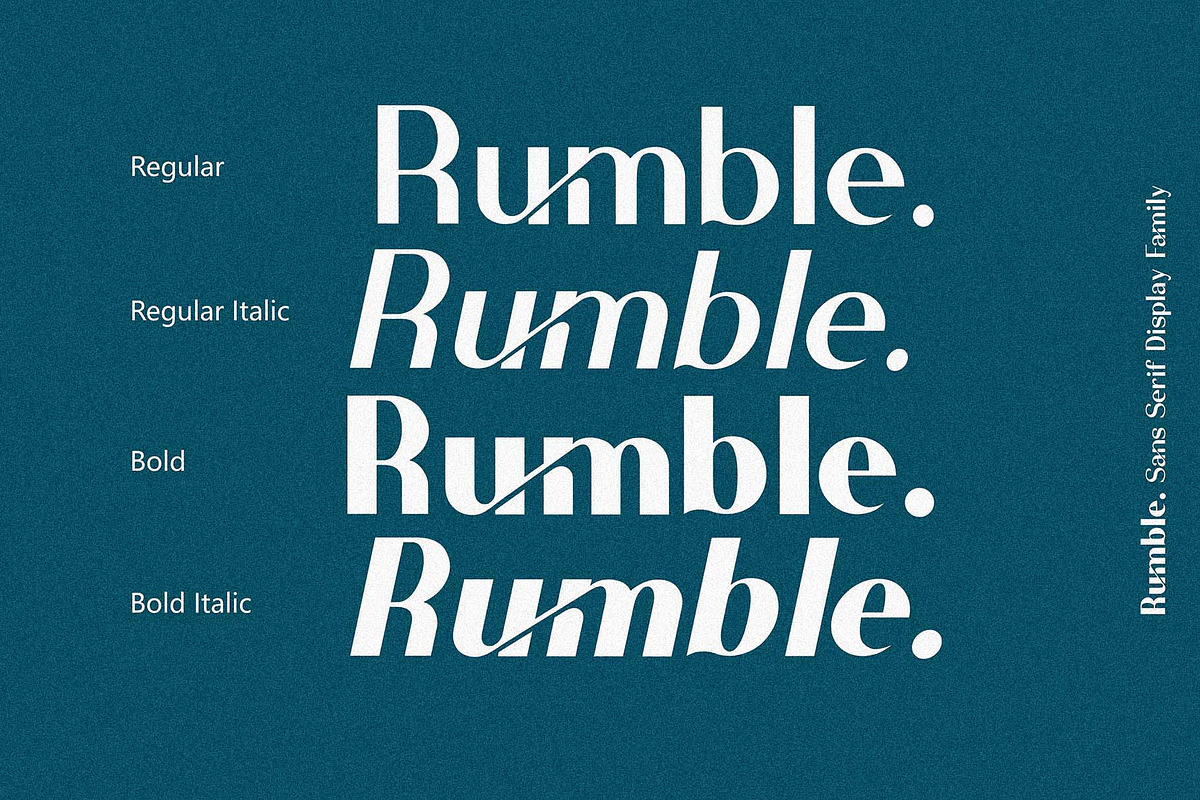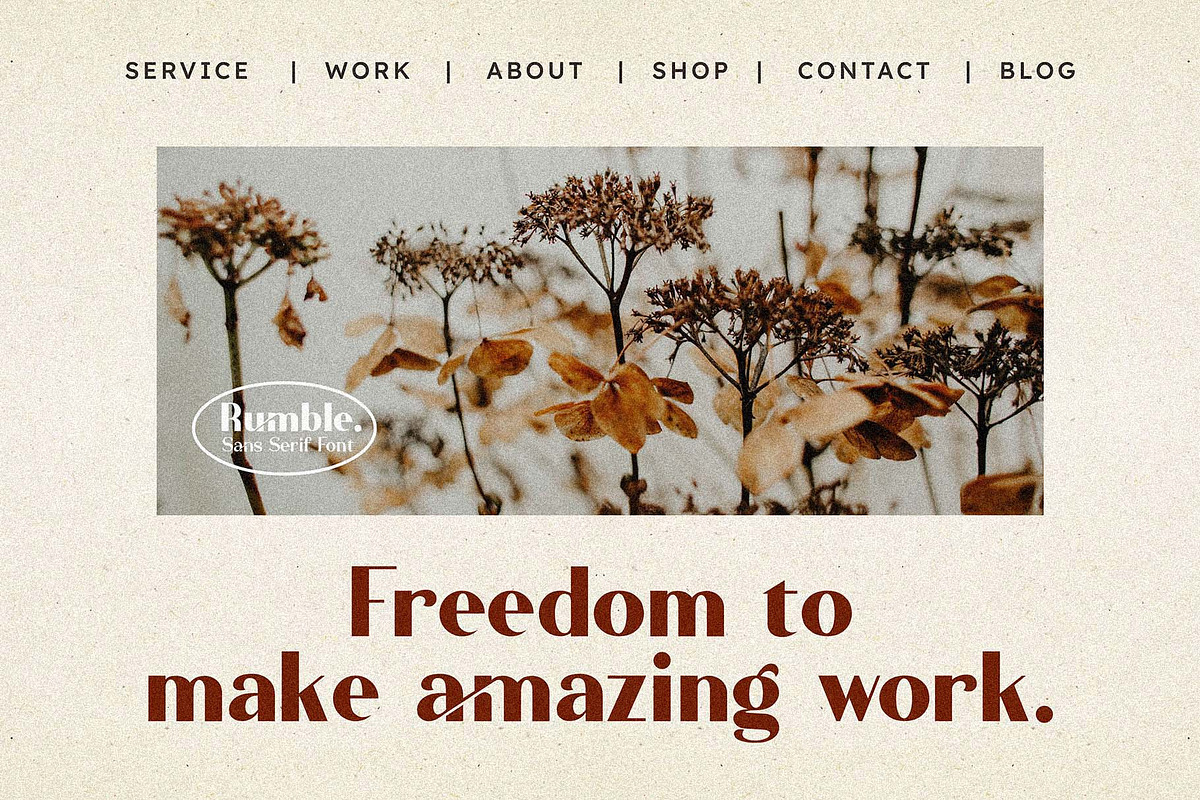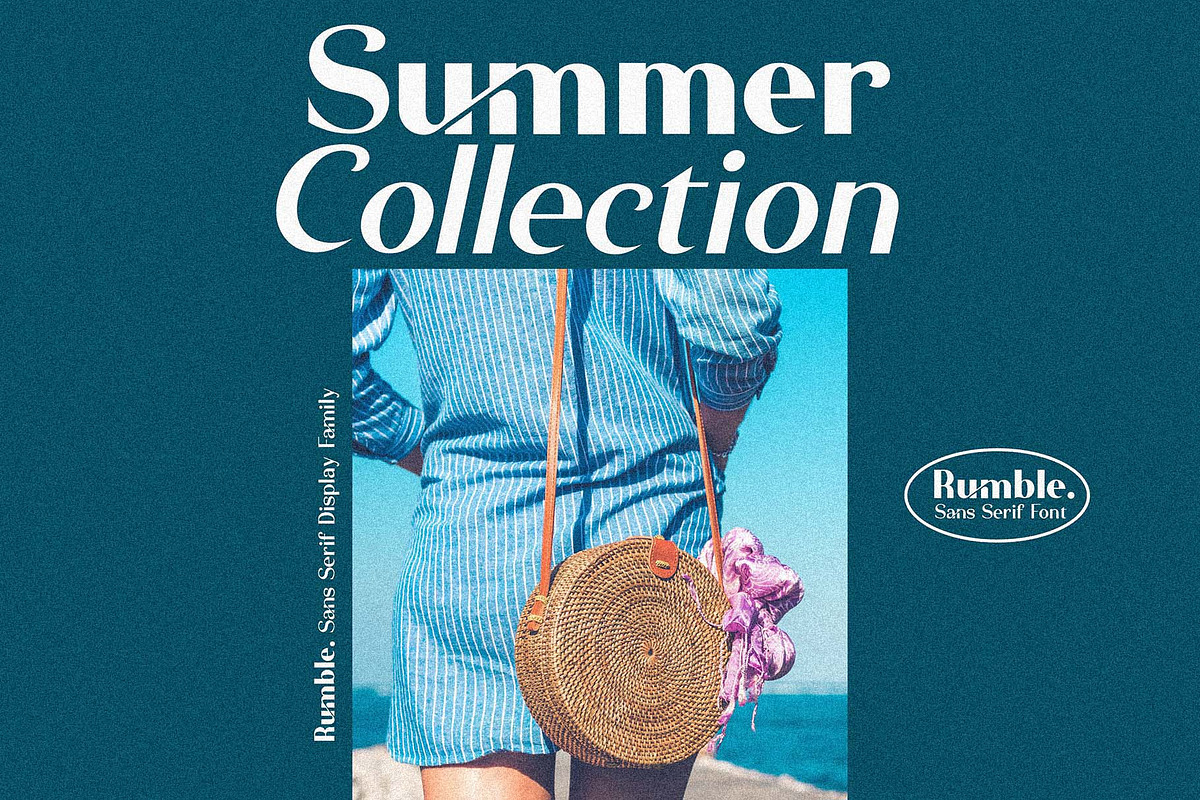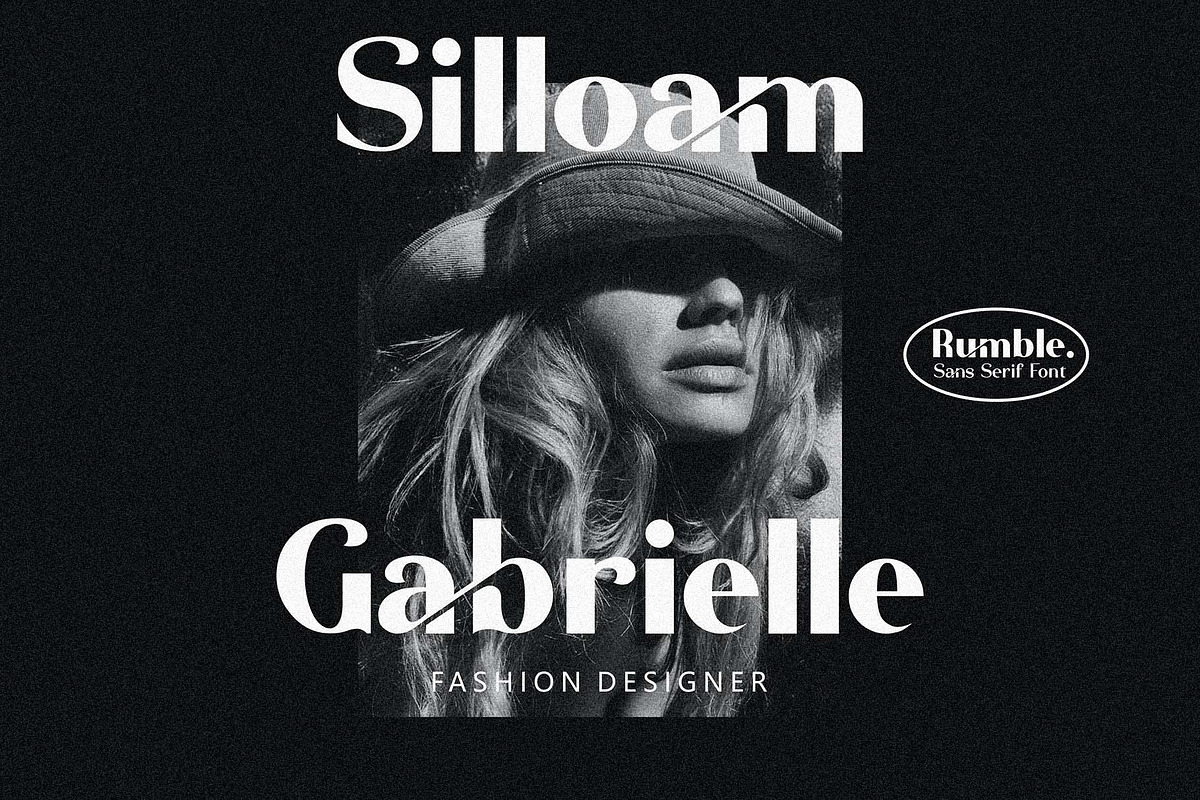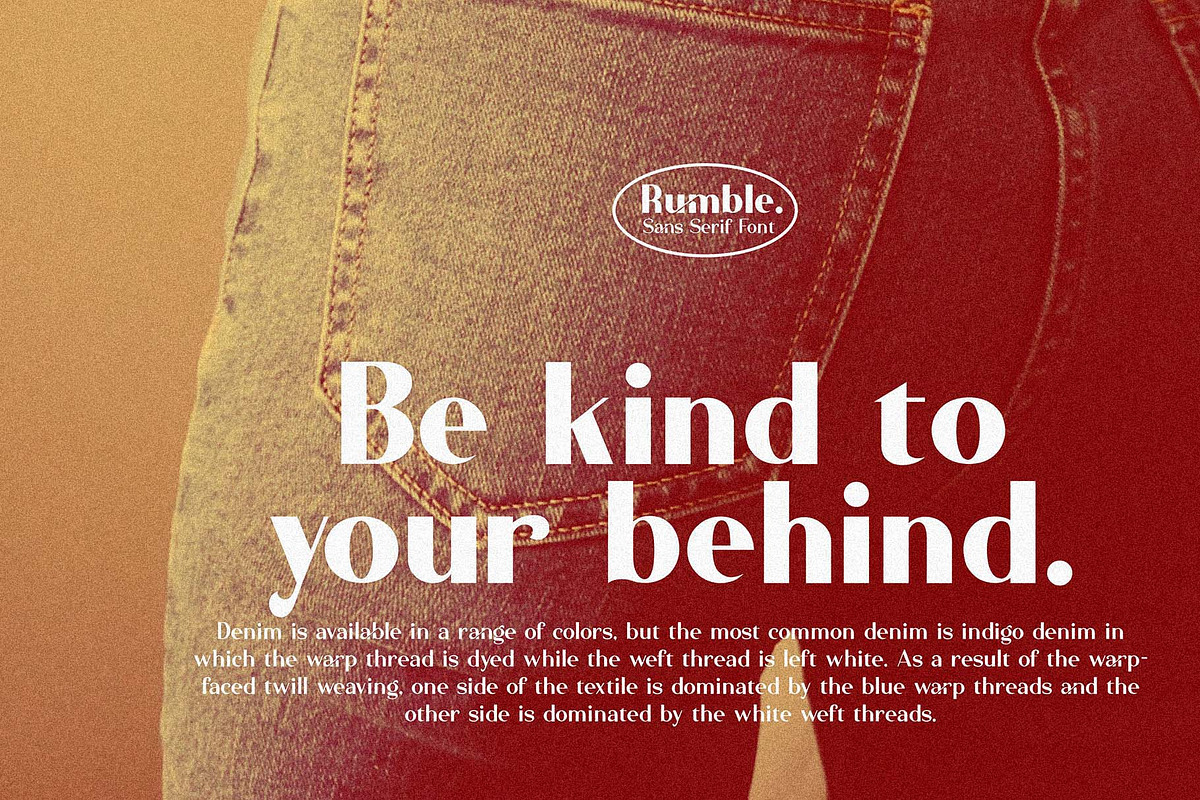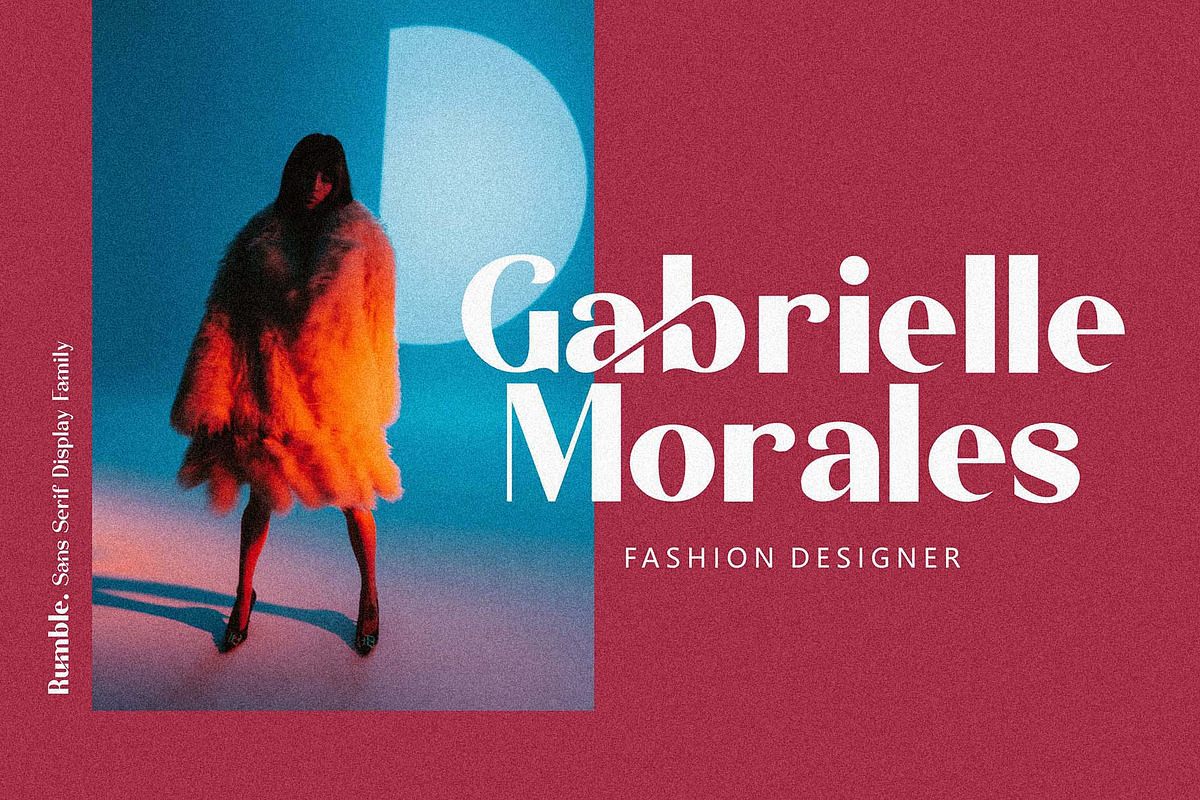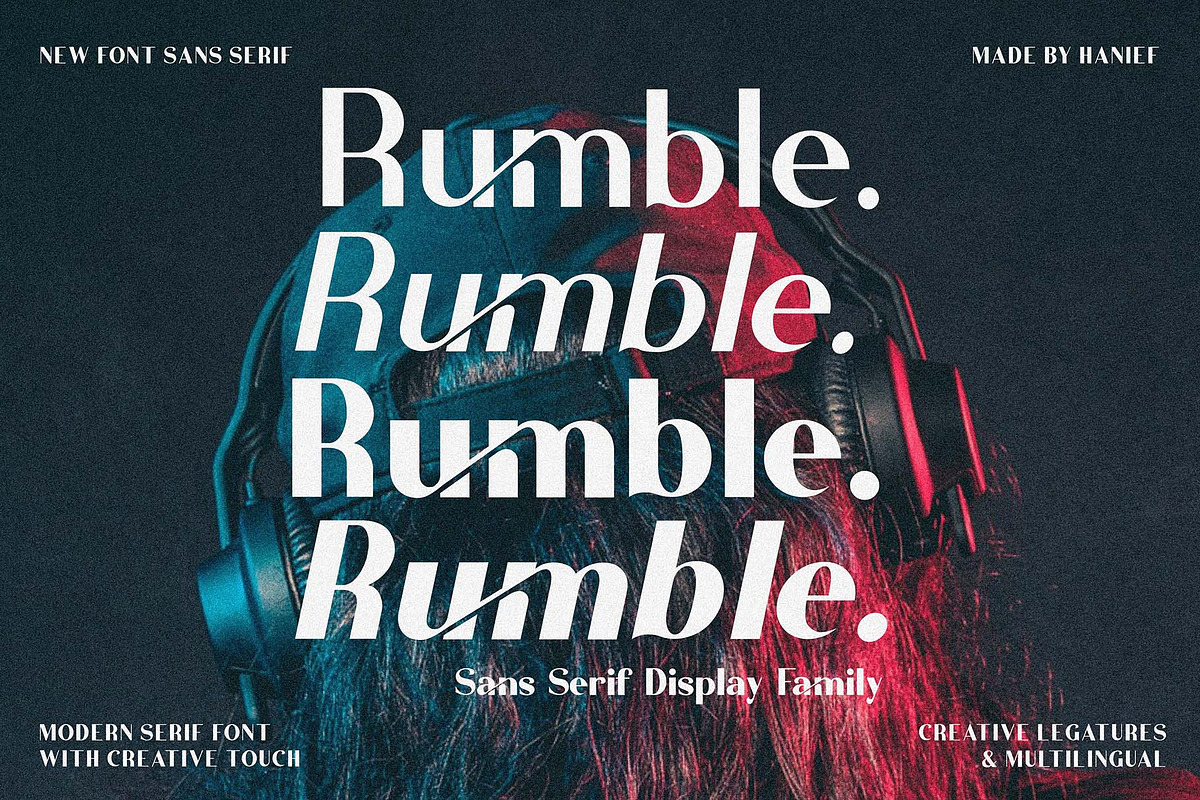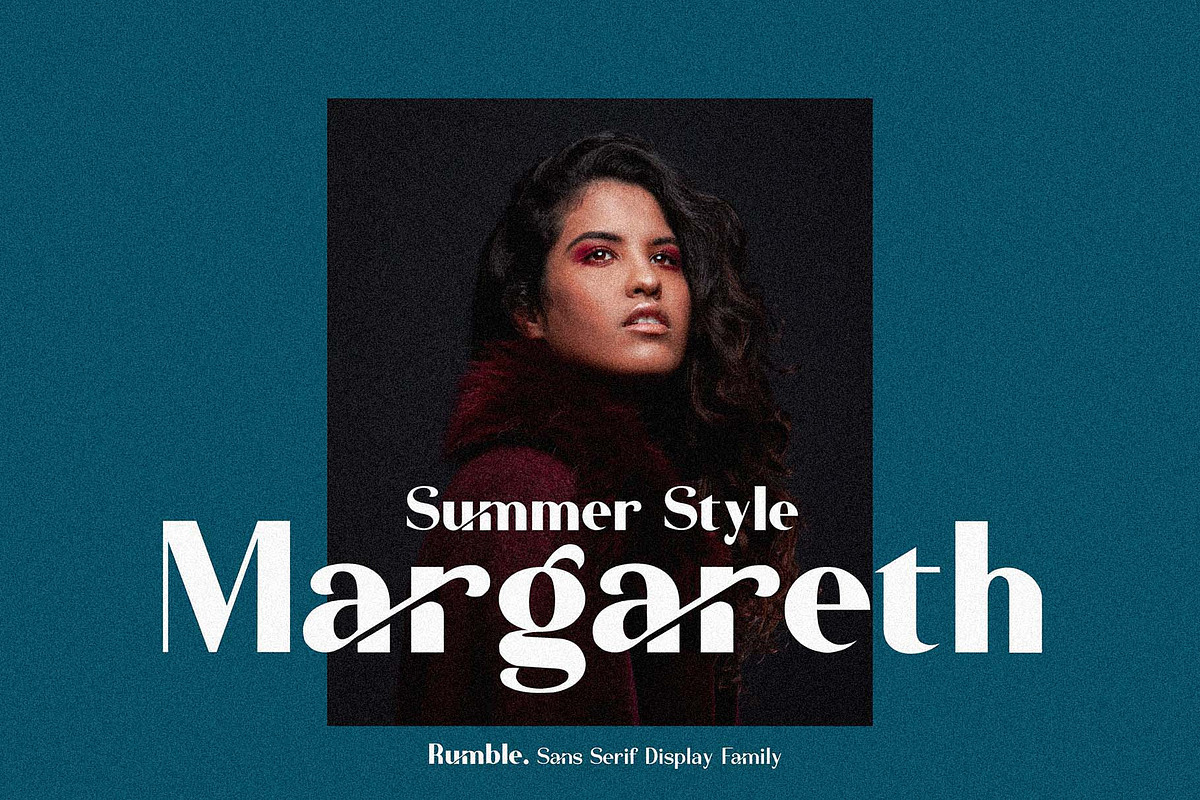
Rumble//Elegant Typeface
Rumble sans serif. Combines elegant in letters, making this font look exclusive and elegant. With high letters display and thin in the anatomy of each letter. Rumble is a gorgeous sans-serif typeface that is both classically elegant and inherently modern. Create beautiful wedding invitations, use it as an elegant solution for your next magazine layout, or choose Rumble for any graphics that require a Elegant look with a vintage flair.. Rumble is based on classic letterforms for publishing and display graphics, so you can give your text a classic, elegant feel with Rumble clean.
Discretionary Ligatures